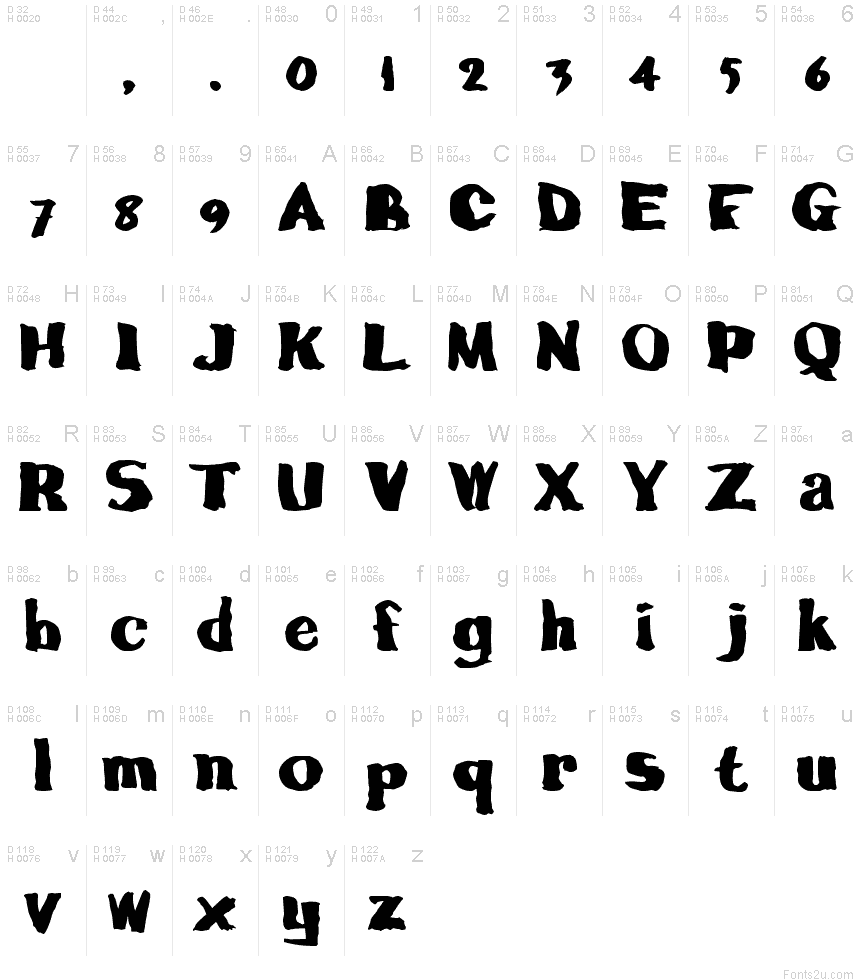
calamityJoe
CalamityJoe font by JOEBOB Graphics is a free distorted western display font. Its chunky, battered shapes feel like they were slapped onto a weathered saloon sign-inky, uneven, and just unruly enough to feel alive. The rough edges and offbeat rhythm give big words a rowdy, outlaw energy that clean lettering can’t touch.
Using CalamityJoe works beautifully for horror posters, haunted attractions, Halloween party flyers, outlaw-themed branding, dive-bar merch, indie game titles, zines, and gritty YouTube thumbnails. Keep it large so the texture can breathe, and pair this free font with a plain condensed sans when the rest of your text needs to stay clear.